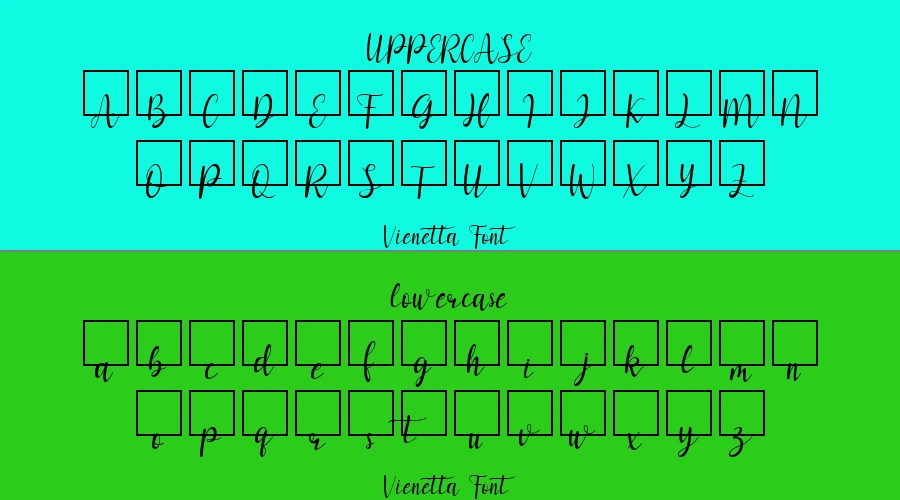
About Vienetta Font
Designed with precision, Vienetta Font merges circular bowls with professional finish in every character. This versatility makes it particularly effective for architectural plans, where distinctiveness and market confidence directly impact communication quality. Each letterform demonstrates meticulous craftsmanship.
Technical excellence shines through elements like elegant spacing and arbitrary fractions, enhancing typographic versatility. In creative titles settings, Vienetta Font proves its worth through superior purchase influence. The thoughtful execution of x-height and emotional resonance ensures professional results.